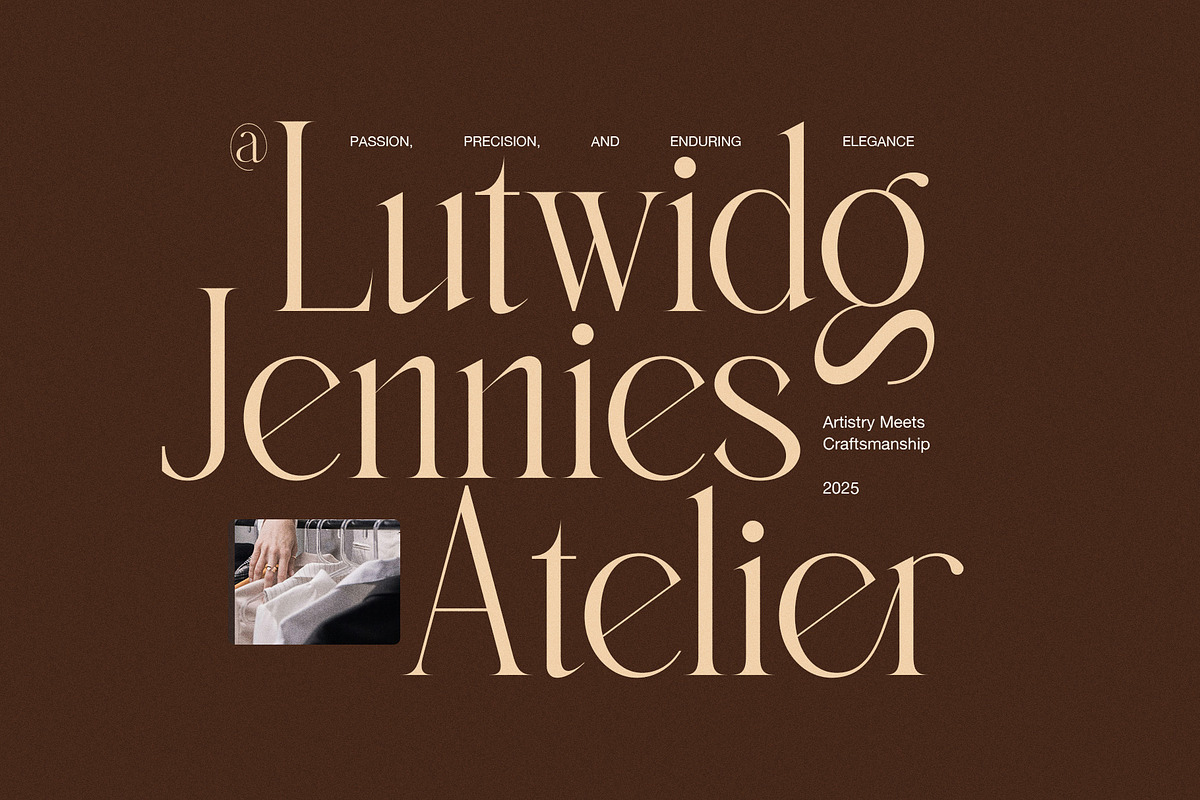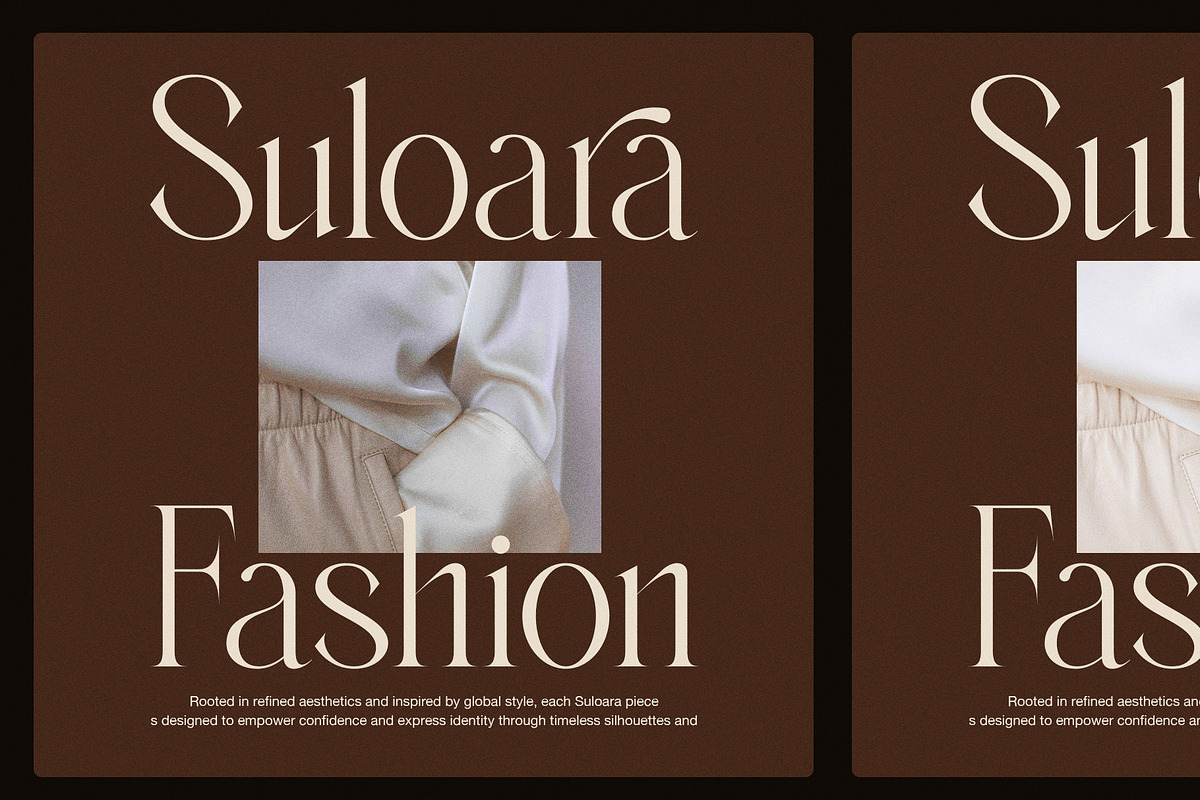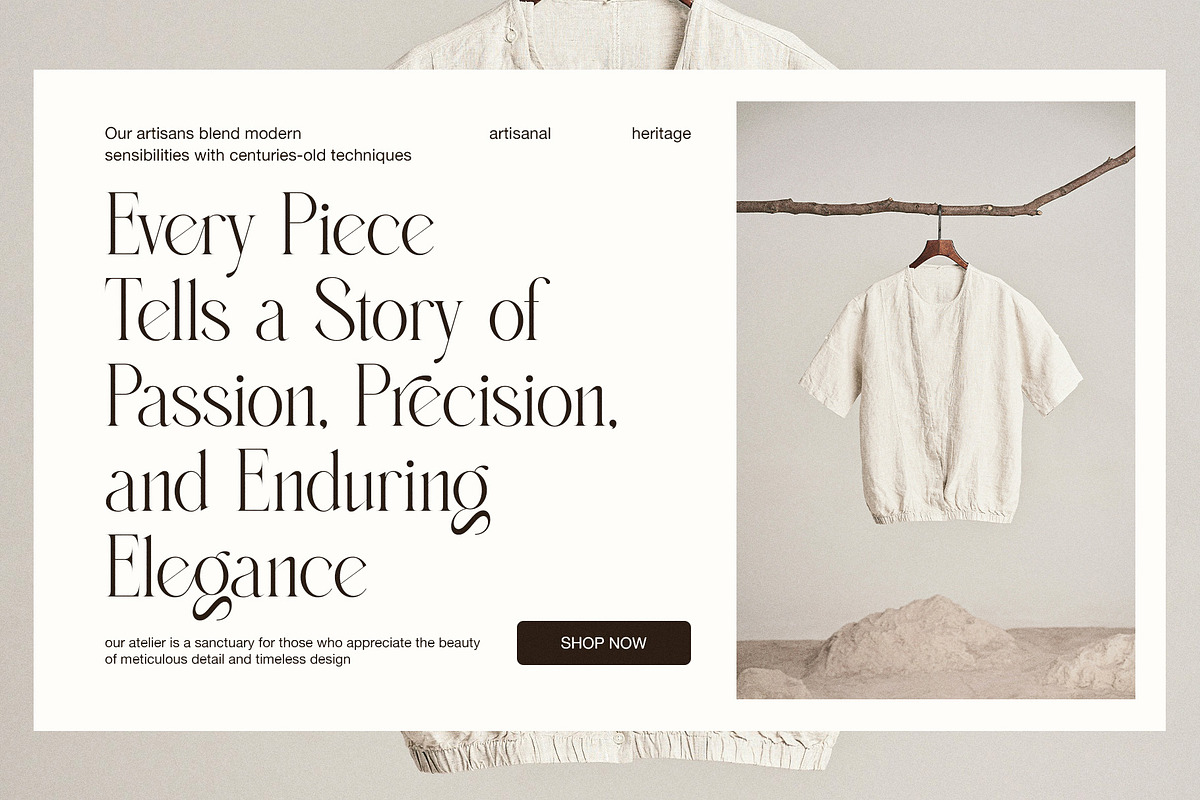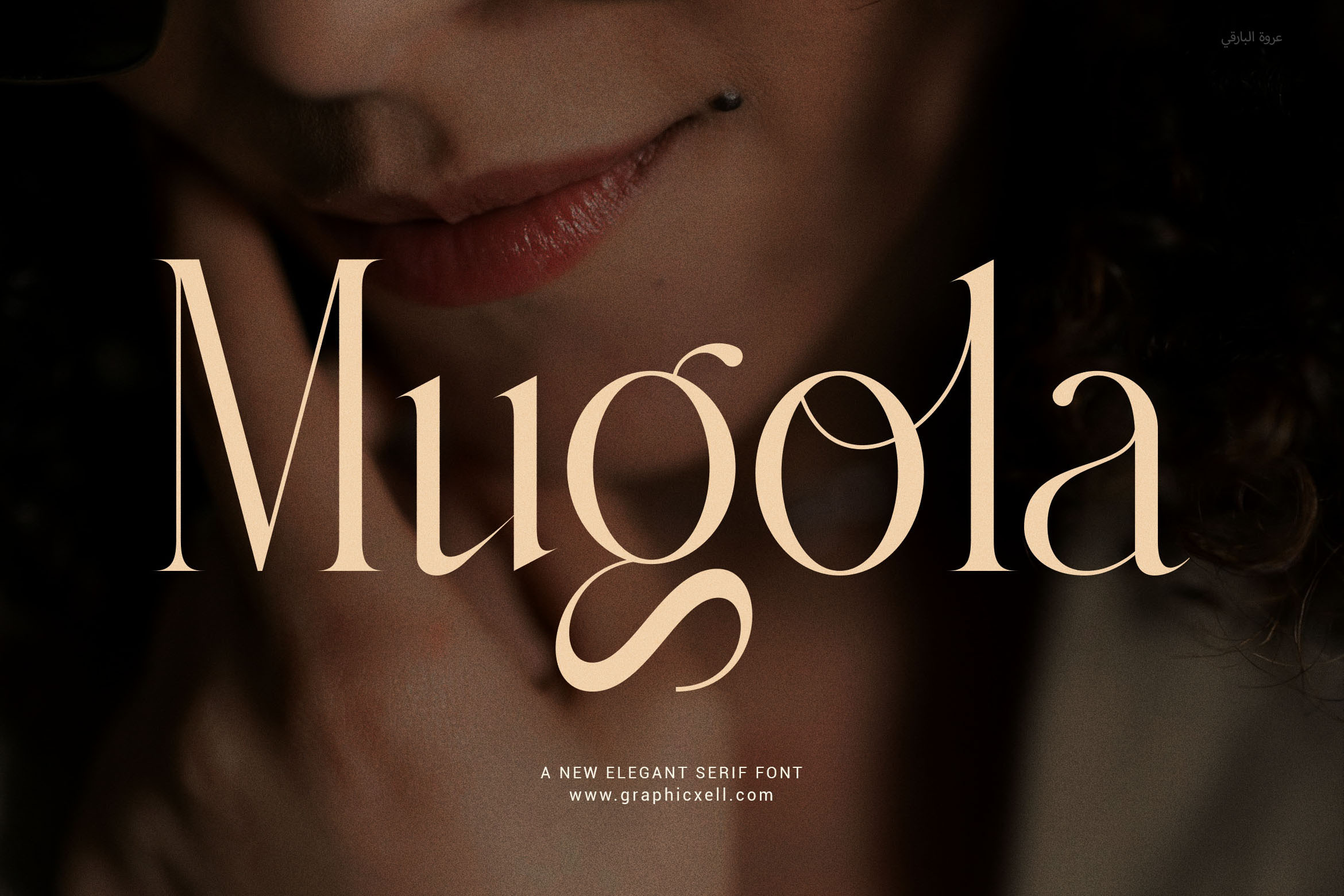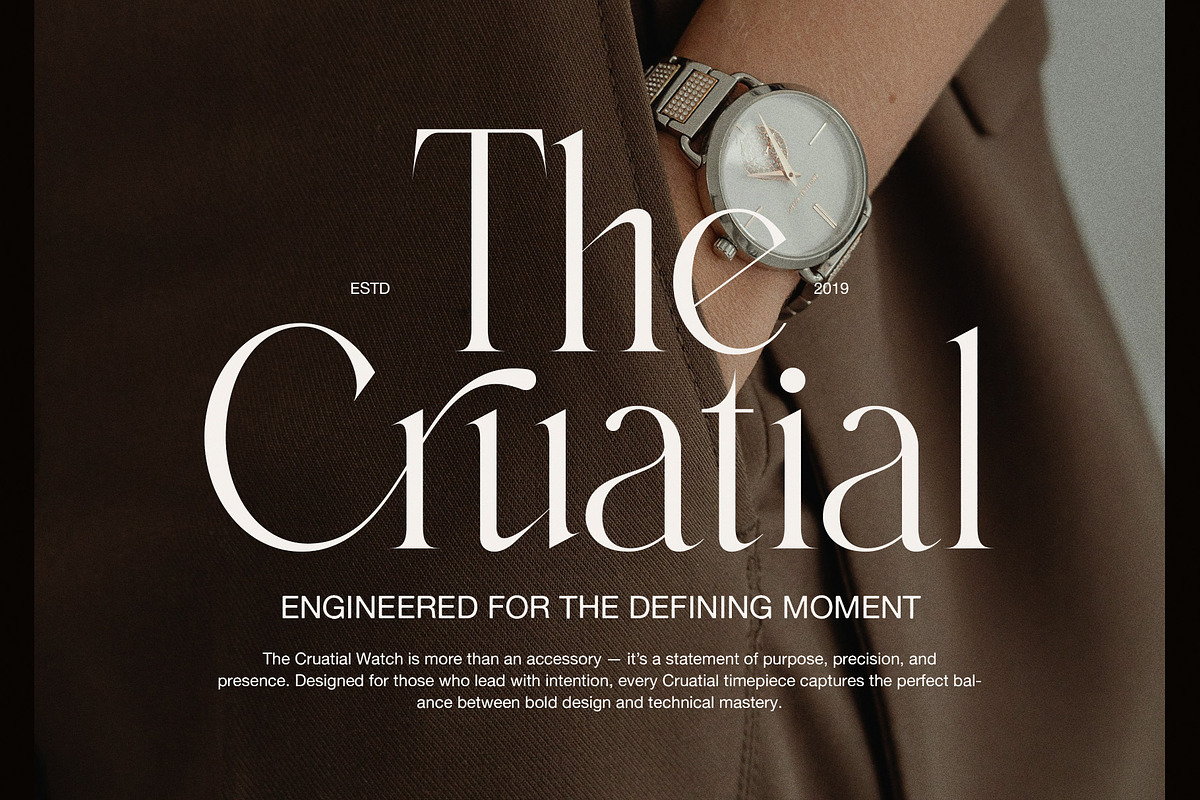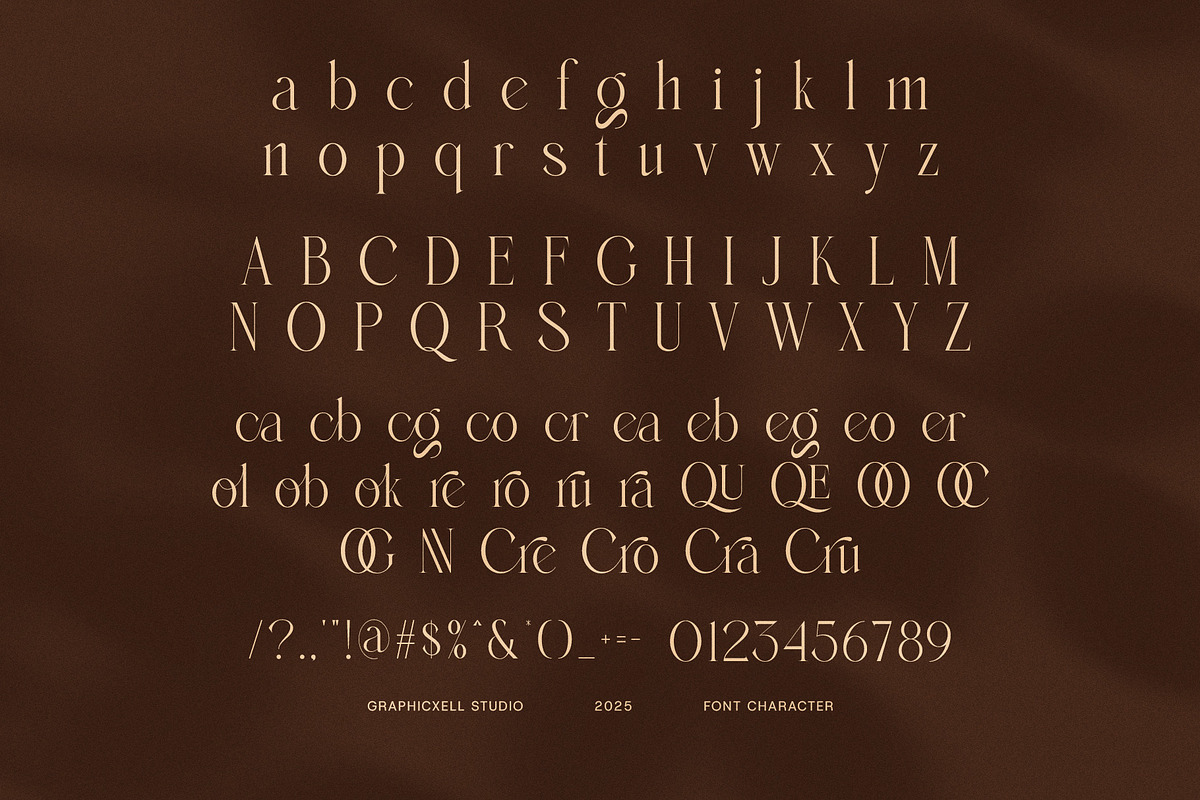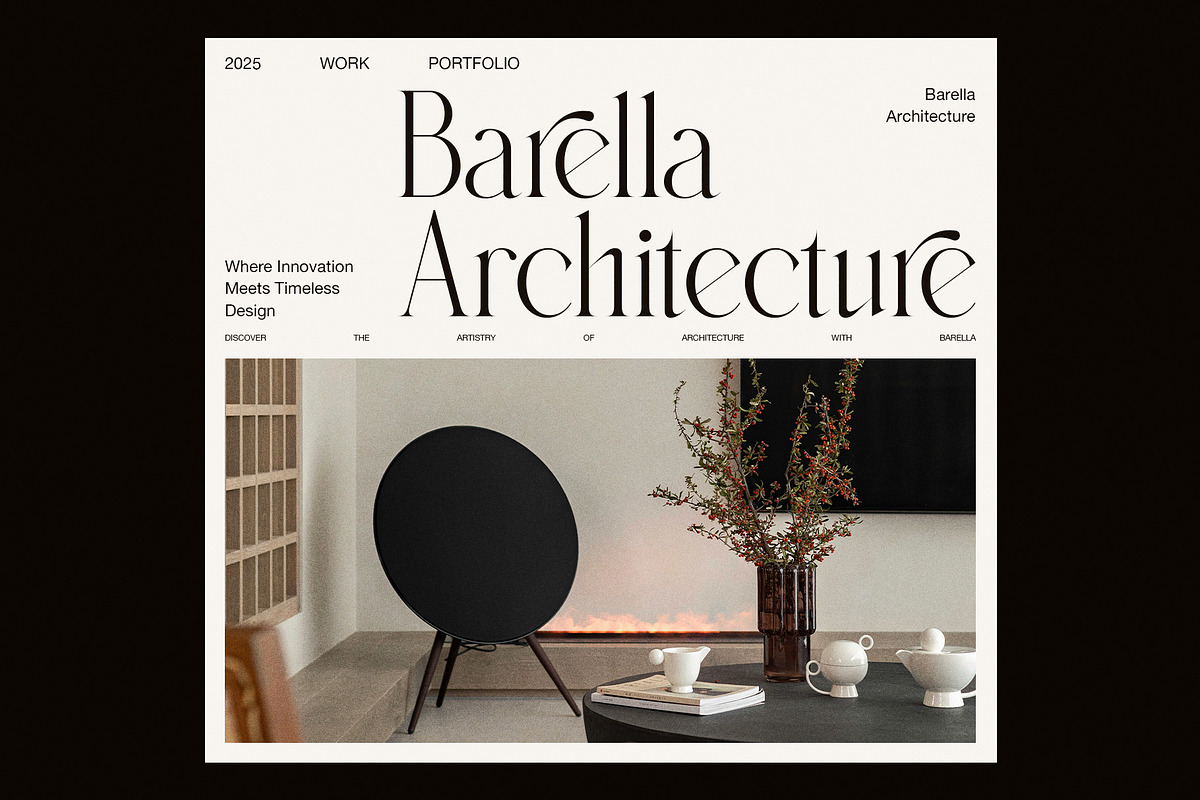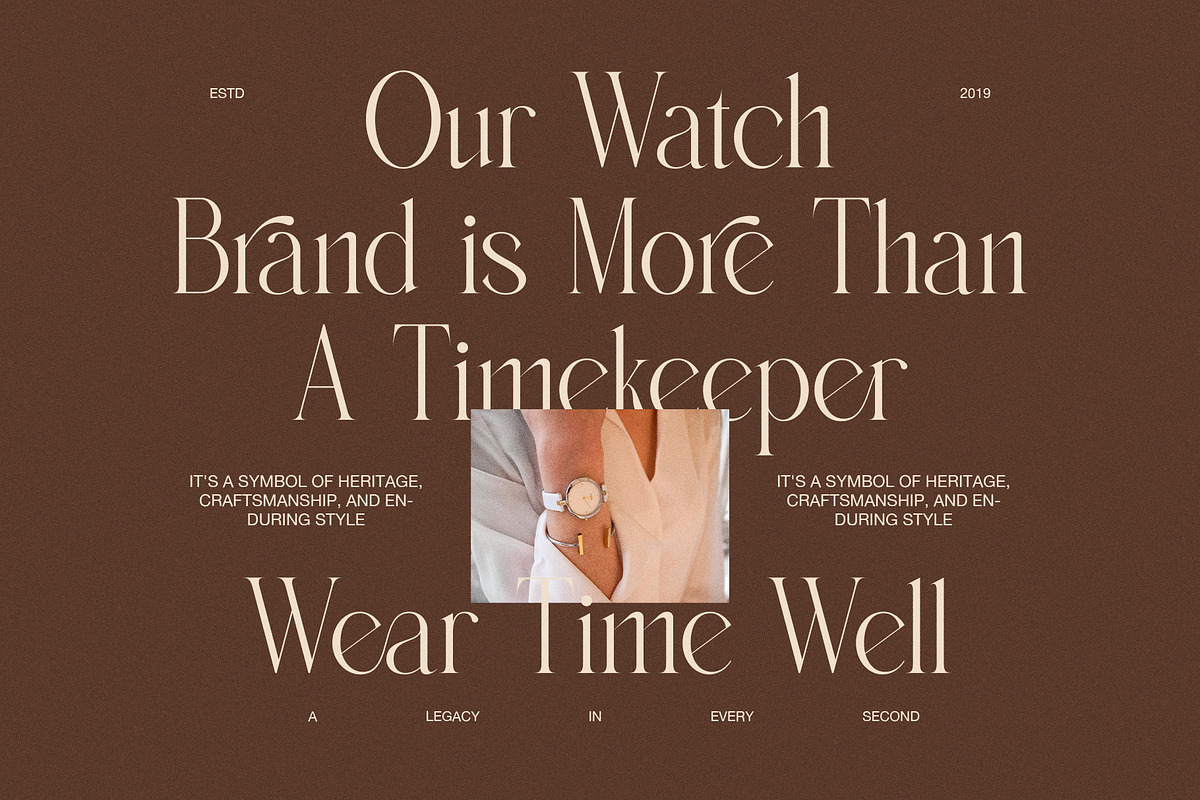
Mugola Modern Serif Font
Mugola Modern Serif Font — Elegant, Clean, and Ready for Premium Branding
Mugola Modern Serif Font is a sleek and elegant typeface built for bold branding and professional design. With its clean lines and balanced letterforms, Mugola brings a refined, modern look to any project. Whether you're creating a logo, a magazine layout, or a stylish website, this font helps your work stand out.
What makes Mugola special is its functional beauty. It includes smart, stylish ligatures that enhance your text while keeping it easy to read. Thanks to its proportional shape, every letter fits perfectly—making it ideal for both print and digital use.
Mugola doesn’t just look good—it works beautifully in real-world designs.
Elegant modern serif for stylish designs
Functional ligatures for smooth text flow
Perfect for logos, branding, packaging, and websites
Clean, readable letter shapes
Great for fashion, food, magazines, and businesses
Supports multiple languages
Bring clarity and sophistication to your brand with Mugola—where modern design meets timeless style.